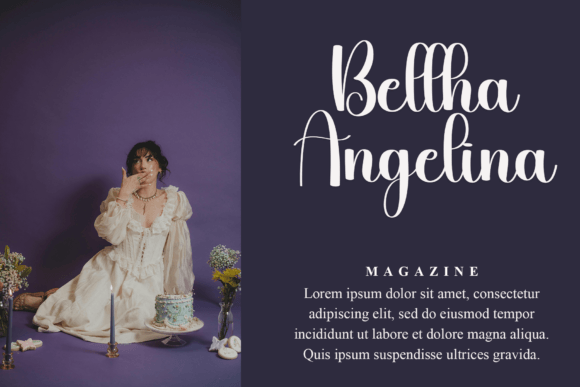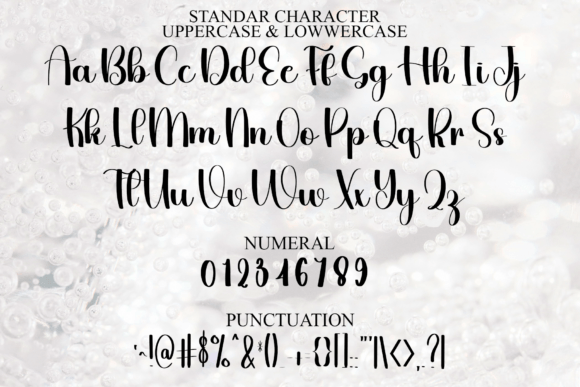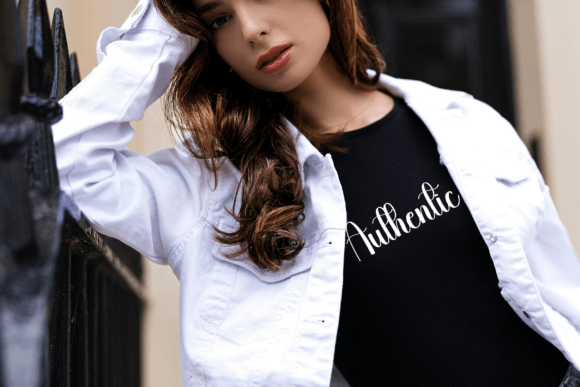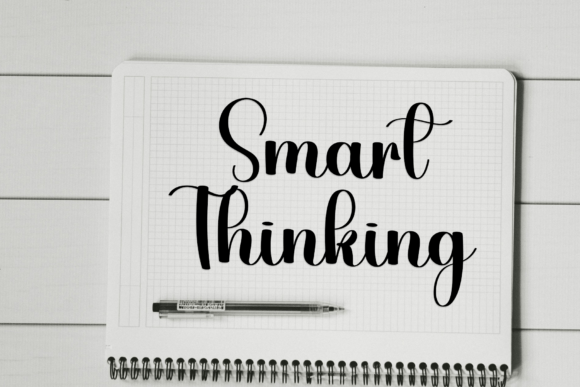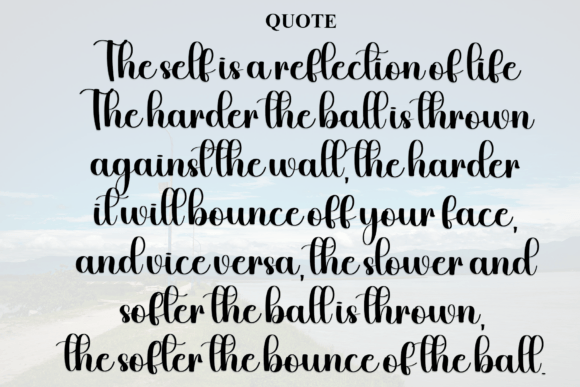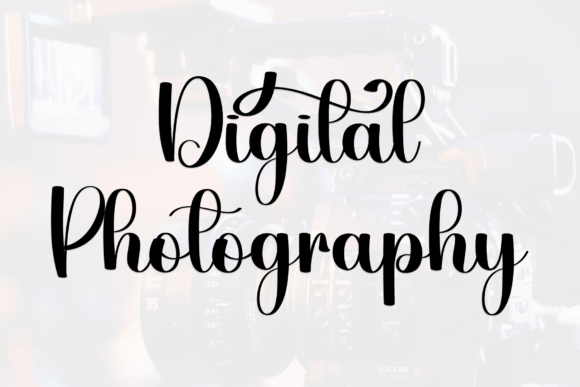
Discover the Elegance of Digital Font: A Masterpiece for Designers and Crafters
In the world of typography, few fonts have managed to capture the essence of elegance and versatility as perfectly as Digital Font. This delicate and elegant handwritten font has taken the design community by storm, and for good reason. Its distinct and well-balanced letters make it a masterpiece that can elevate any design project to new heights.
The Characteristics of Digital Font
So, what makes Digital Font so special? For starters, its handwritten nature gives it a personal and organic feel that is hard to replicate with more traditional fonts. The letters are carefully crafted to be both distinct and balanced, creating a harmonious flow that is a joy to behold. Whether you’re designing a logo, a poster, or a website, Digital Font’s unique character is sure to make your project stand out.
The Versatility of Digital Font
One of the most impressive aspects of Digital Font is its incredible versatility. This font can be used in a wide range of design projects, from elegant wedding invitations to bold marketing materials. Its delicate nature makes it perfect for designs that require a touch of sophistication, while its bold personality can add a playful twist to more experimental projects.
Why Designers and Crafters Love Digital Font
Designers and crafters alike have fallen in love with Digital Font, and it’s easy to see why. Here are just a few reasons why this font has become a favorite among creative professionals:
- Elegance**: Digital Font’s delicate nature makes it perfect for designs that require a touch of elegance and sophistication.
- Versatility**: This font can be used in a wide range of design projects, from logos and posters to websites and social media graphics.
- Uniqueness**: Digital Font’s handwritten nature gives it a unique character that is sure to make your design project stand out.
- Easy to Read**: Despite its delicate nature, Digital Font is surprisingly easy to read, making it perfect for designs that require a clear and concise message.
Tips for Using Digital Font in Your Designs
Now that you’ve fallen in love with Digital Font, here are a few tips for incorporating it into your design projects:
- Pair it with bold colors**: Digital Font’s delicate nature makes it the perfect pairing for bold and bright colors.
- Experiment with font sizes**: Don’t be afraid to experiment with different font sizes to add visual interest to your design.
- Use it for headings and titles**: Digital Font’s unique character makes it perfect for headings and titles, adding a touch of elegance and sophistication to your design.
- Add a personal touch**: Digital Font’s handwritten nature makes it perfect for adding a personal touch to your design projects.
In conclusion, Digital Font is a true masterpiece that is sure to capture your heart. Its delicate and elegant nature, combined with its incredible versatility, make it the perfect addition to any design project. Whether you’re a designer, crafter, or simply a typography enthusiast, Digital Font is sure to inspire you to create something truly spectacular. So why wait? Fall in love with Digital Font today and take your design projects to new heights!